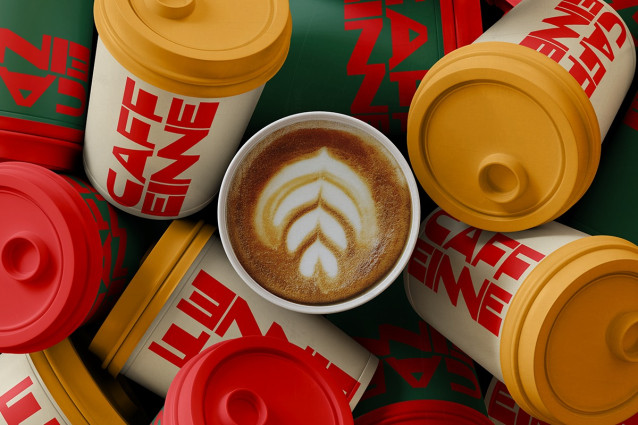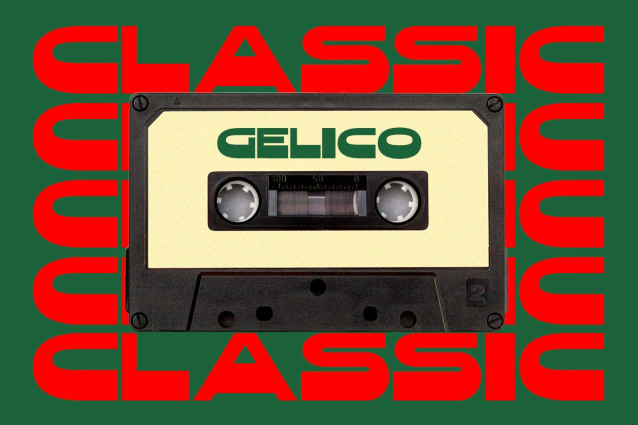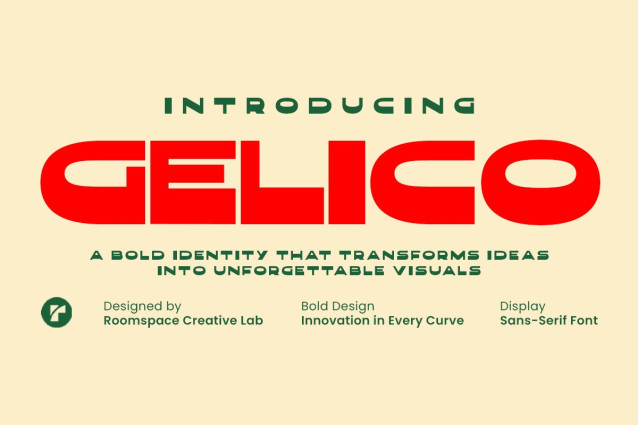
Gelico Font
Gelico Font is a bold geometric display font designed to make a strong statement. With its heavy weight and clean shapes, Gelico is perfect for projects that demand attention and unforgettable visuals. Its confident look is ideal for modern branding and creative headlines.
Crafted with precision, Gelico balances boldness and readability. Its geometric construction ensures consistent spacing, smooth kerning, and versatility across different design applications. The font includes uppercase, lowercase, numbers, and multilingual support, making it reliable for professional use.
Whether you’re working on logos, posters, advertising campaigns, packaging, or digital designs, Gelico brings impact and innovation to your work. Add Gelico to your font collection and transform your creative projects with bold and timeless typography.